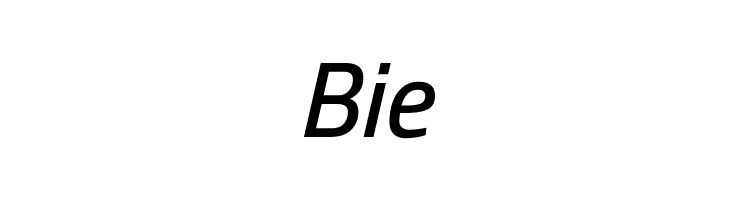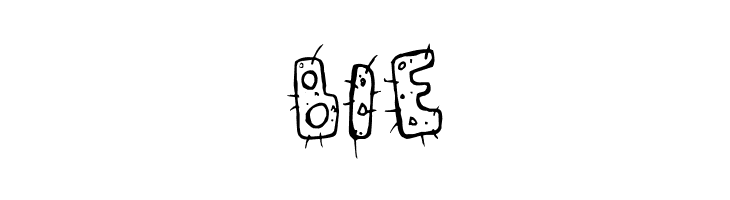
A bold, geometric sans-serif font with a modern, industrial style.
A playful, cactus-inspired font with bold, rounded letters and decorative spikes.
A playful, hand-drawn font with a quirky and informal style.
A bold, italicized modern sans-serif font with a dynamic and clean appearance.
A modern, medium-weight sans-serif font with an italic style, offering clarity and versatility.
A modern, semi-bold, italic sans-serif font with medium contrast and normal spacing.
A bold, italic sans-serif font with a modern and dynamic style.
A modern, extra light sans-serif italic font with a sleek and elegant style.
A modern sans-serif italic font with a sleek and dynamic style.
A modern, light, italic sans-serif font with sleek, fluid lines.